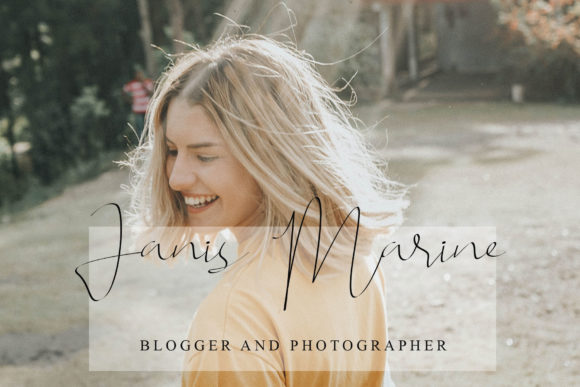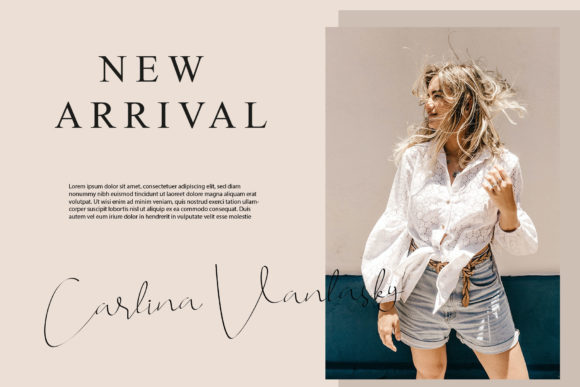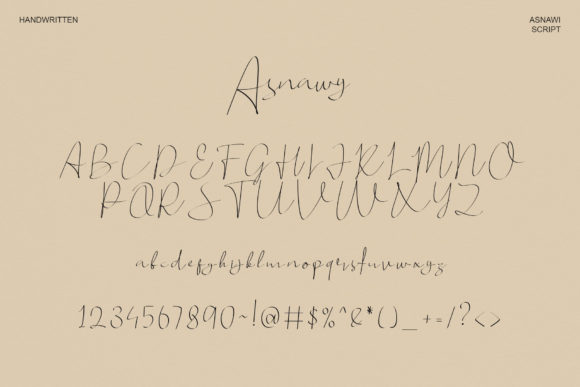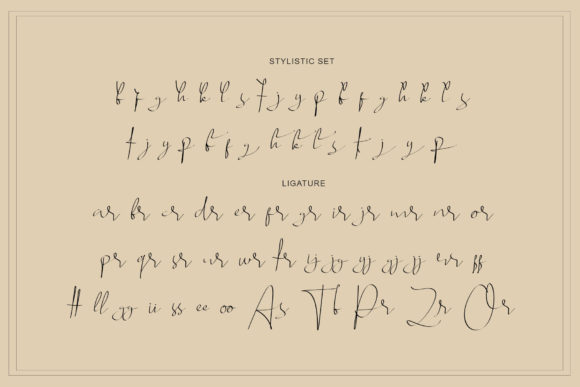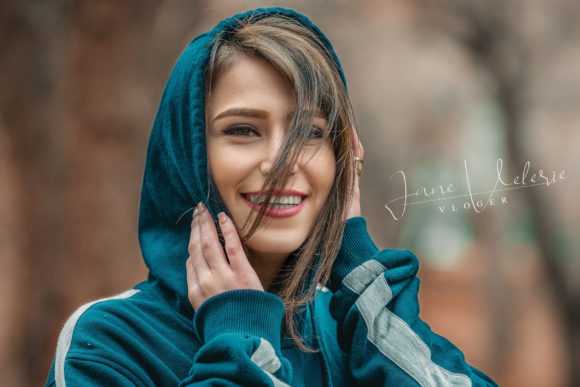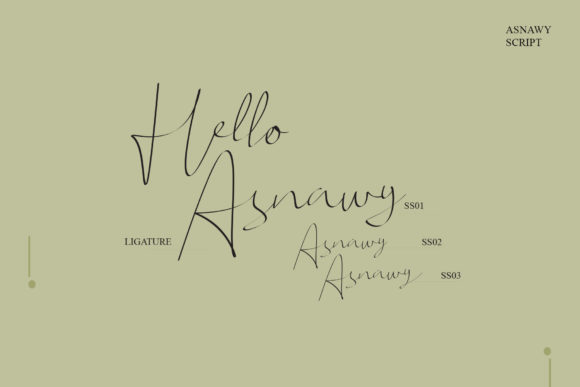
The Elegance of Asnawy Font: Elevating Your Creative Designs
Have you ever found yourself staring at a blank canvas, struggling to find the perfect font to bring your vision to life? The moment when the right typography clicks is a magical one, and that’s exactly what the Asnawy Font aims to provide.
This exquisite script font is designed to add a touch of luxury and sophistication to any design. With its delicate, thin lettering, Asnawy Font is perfect for creating elegant invitations, wedding stationery, or even high-end branding materials. What sets it apart is its PUA encoding, allowing designers to access all the glyphs and swashes with ease, giving them the creative freedom to experiment and push the boundaries of their designs.
Whether you’re a seasoned designer or just starting out, the Asnawy Font is an invaluable addition to your toolkit. Its versatility and elegance make it a valuable asset for anyone looking to create stunning, high-end designs that leave a lasting impression.
Asnawy Font Key Features
- Font Family: Asnawy Font is a unique, handwritten script font with a modern and elegant feel.
- Character Set: Supports a wide range of languages, including Latin, Cyrillic, and Arabic scripts.
- Size: The font includes a range of weights, from Light to Bold, allowing for flexibility in design and typography.
- Unique Characteristics: Asnawy Font features a distinctive, flowing script style with intricate connections between letters, making it perfect for creative and artistic applications.
Asnawy Font Review
I recently had the chance to work with the Asnawy Font, and I must say it’s a solid choice for any designer looking to add a touch of elegance to their projects. ✨
- The Asnawy Font has a beautiful, hand-drawn feel that makes it perfect for creating a personal and unique look.
- It’s highly legible, making it easy to read even at smaller font sizes.
- The font is well-suited for a variety of projects, from branding to editorial design.
However, I did encounter some limitations while working with the Asnawy Font. ⚠️
- The font is only available in a limited range of weights, which can make it difficult to achieve a consistent look across different text elements.
- The Asnawy Font is not optimized for use in small sizes, and can appear pixelated or fuzzy if not used carefully.
- The font’s unique, hand-drawn feel can be overwhelming if used too extensively.
Overall, I think the Asnawy Font is a great choice for designers looking to add some personality to their work. While it may have some limitations, its unique look and feel make it well worth considering.
For optimal results, use Asnawy Font in combination with high-quality graphics and a clear color scheme. Experiment with different font sizes and styles to create a visually appealing design. Consider using Asnawy Font for headings and titles to create a strong visual identity.
Asnawy Font is ideal for creating elegant and sophisticated designs, such as:
– Luxury branding and packaging
– High-end marketing materials
– Fashion and beauty designs